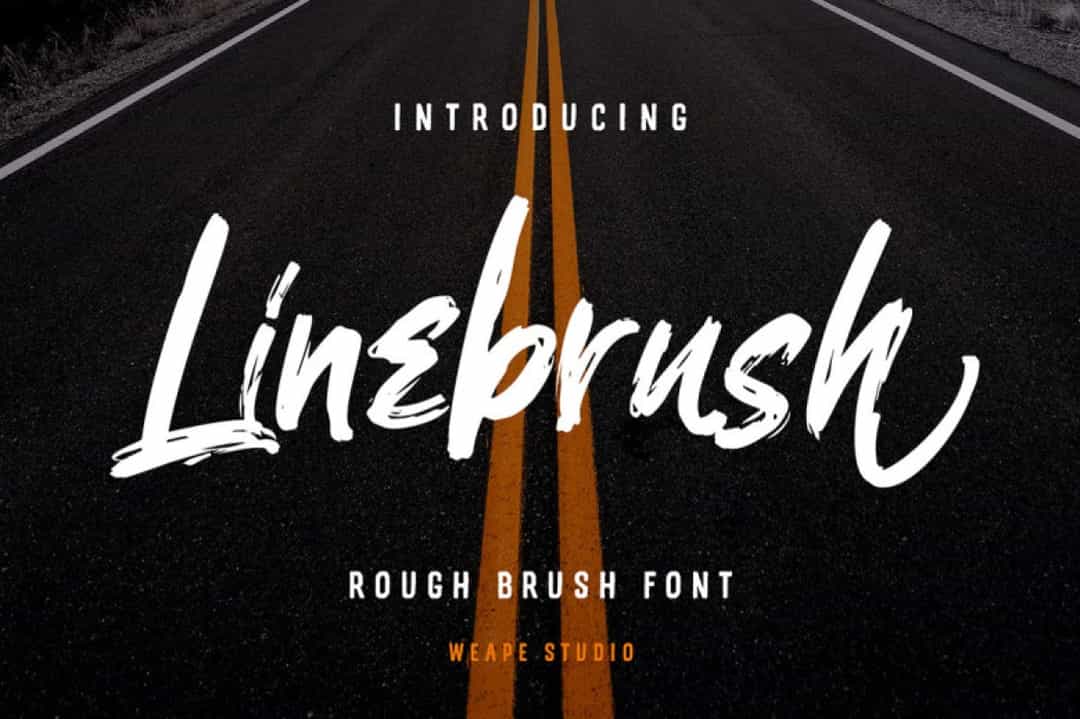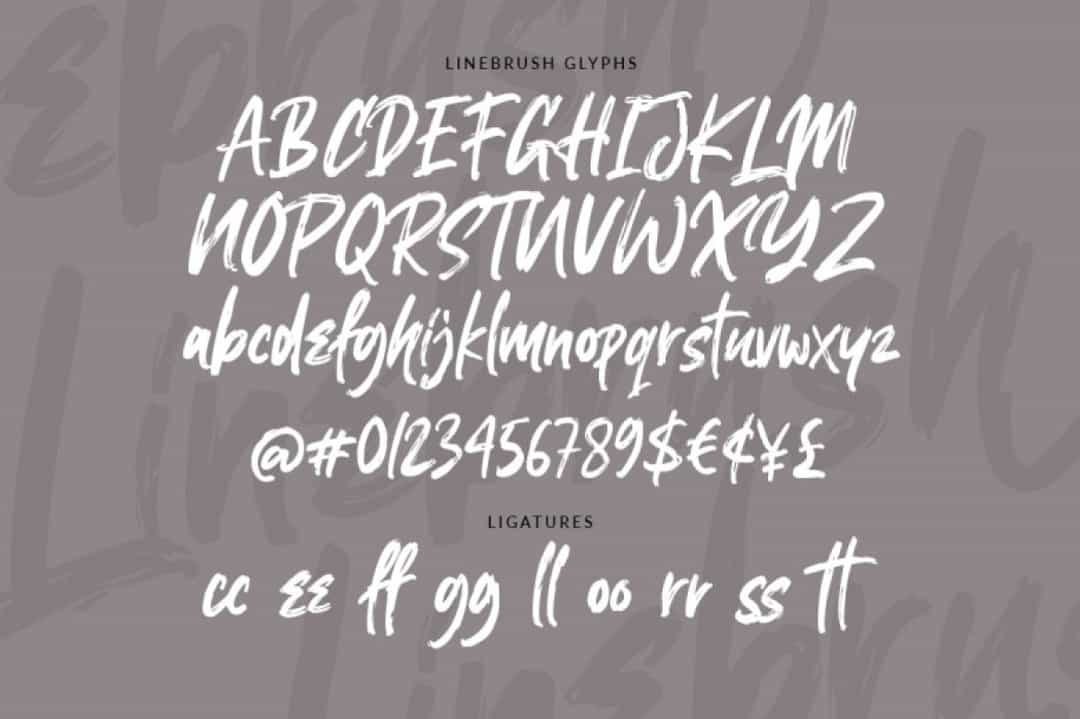
Linebrush is a rough Brush Font featuring natural brush strokes of dry and rough, as well as quick hand strokes quickly. With these features in place, Linebrush makes a fantastic tool to promote products or any other purpose you require of it – handwritten signatures, quotes, weddings, media book covers, greeting cards as well as advertising are just a few uses you could put it too!